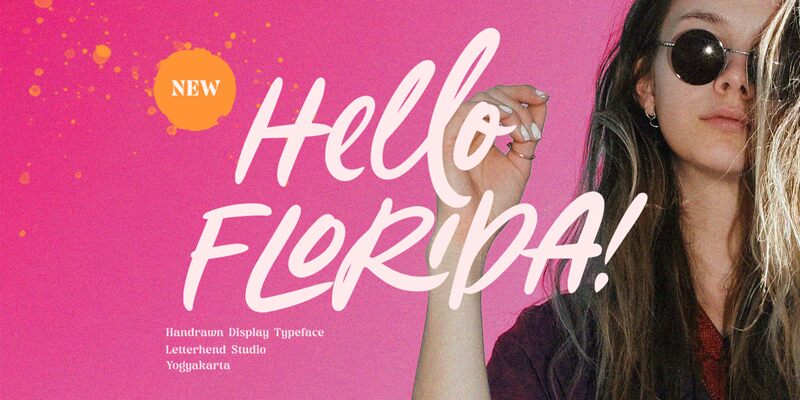
HelloFlorida-Regular
Hello Florida, a creation of Letterhend Studio, brings the warmth and personal touch of handwritten correspondence to any project. This font dances with an effortless grace, its letters flowing into each other with an organic cohesion that evokes the charm of a personal note. The condensed nature of Hello Florida adds to its casual elegance, allowing for impactful messages that don't take up much space.
Its aesthetic appeal lies in the balance between intimacy and readability—perfect for invitations, greeting cards, and branding that require a touch of personality. The style encapsulates the laid-back vibe of its namesake state while maintaining sophistication. Whether it's used to convey heartfelt sentiments or to establish a brand identity, Hello Florida stands out as an inviting choice for designers aiming to infuse their work with authenticity and flair.